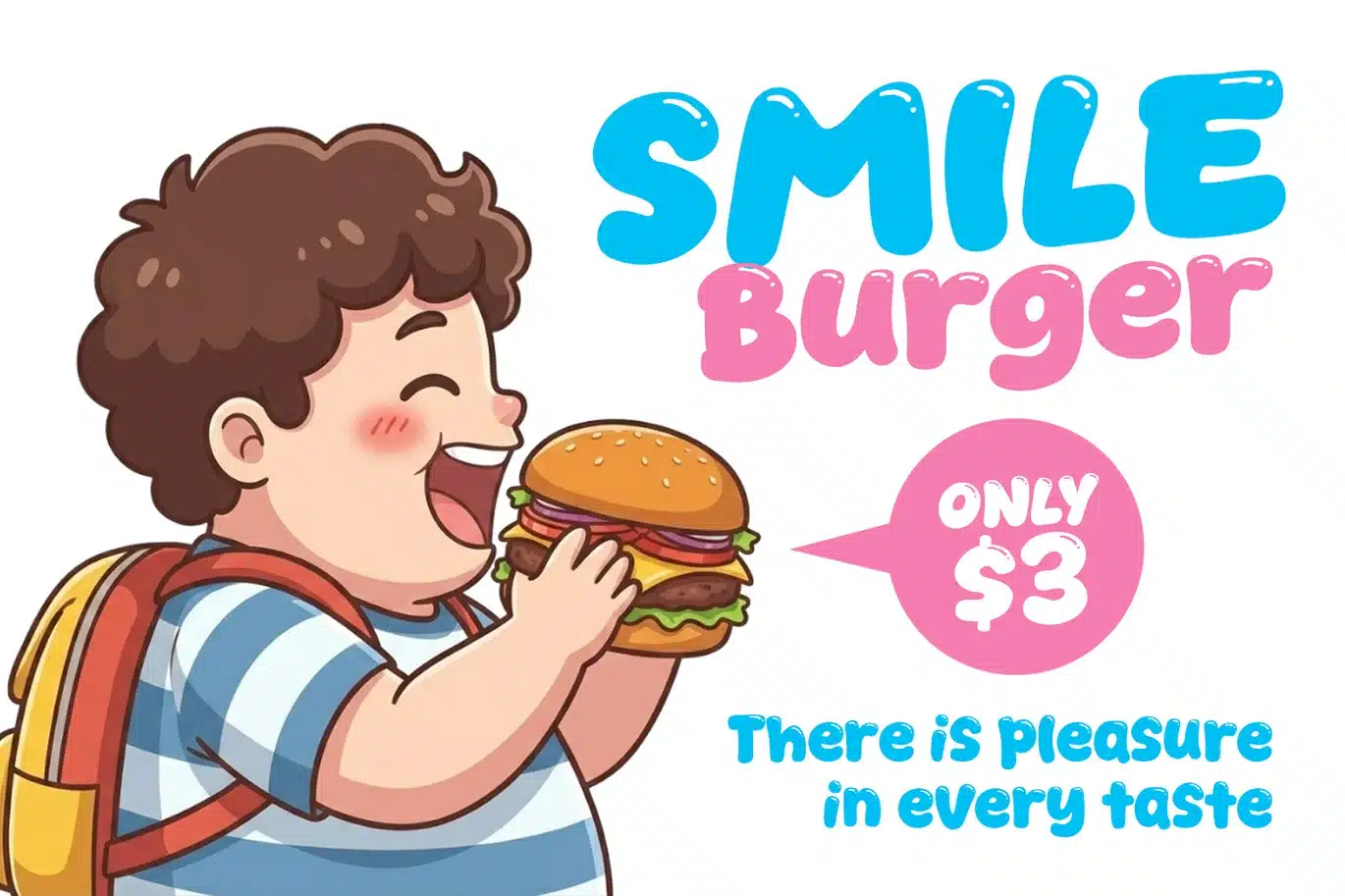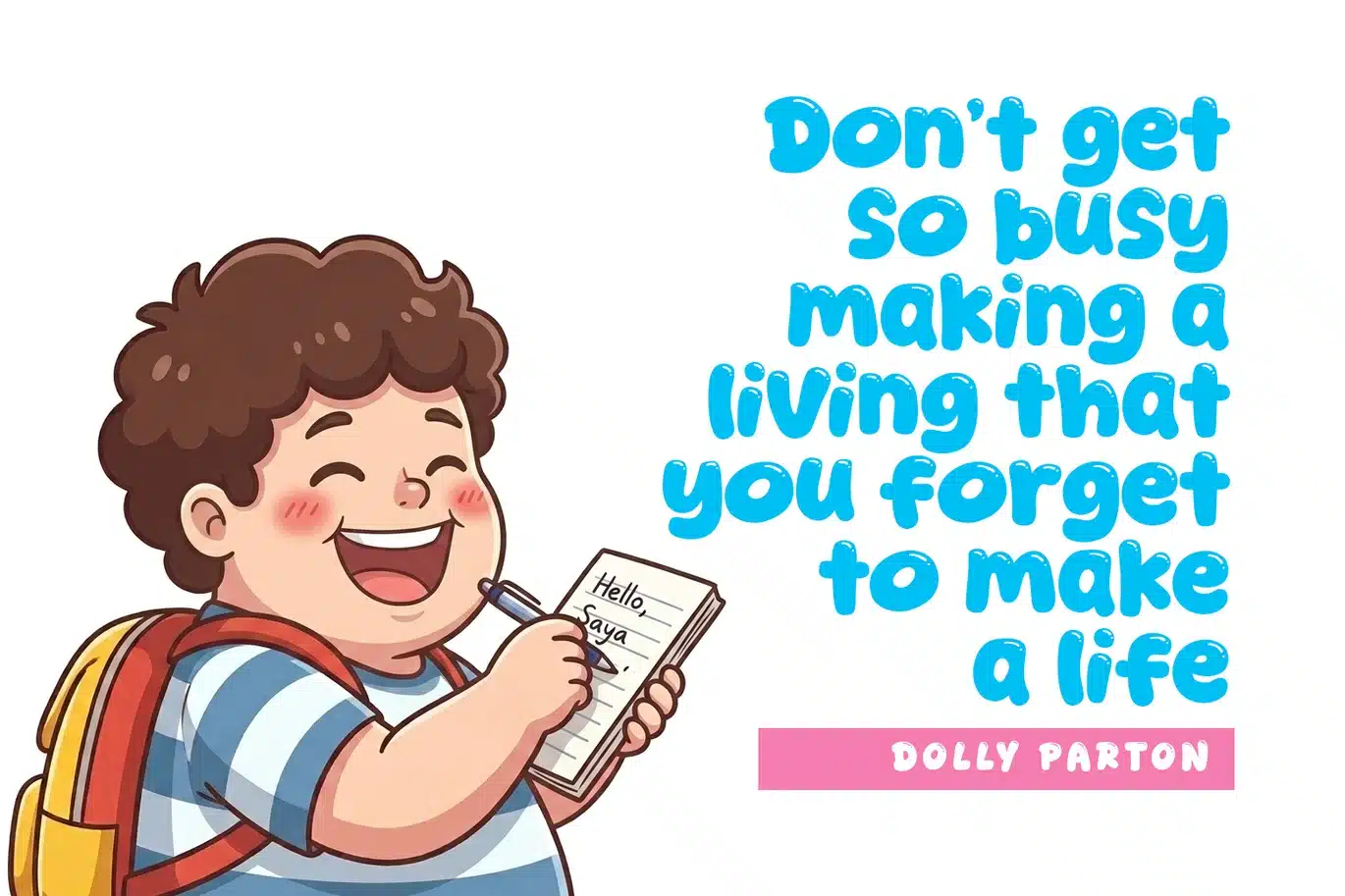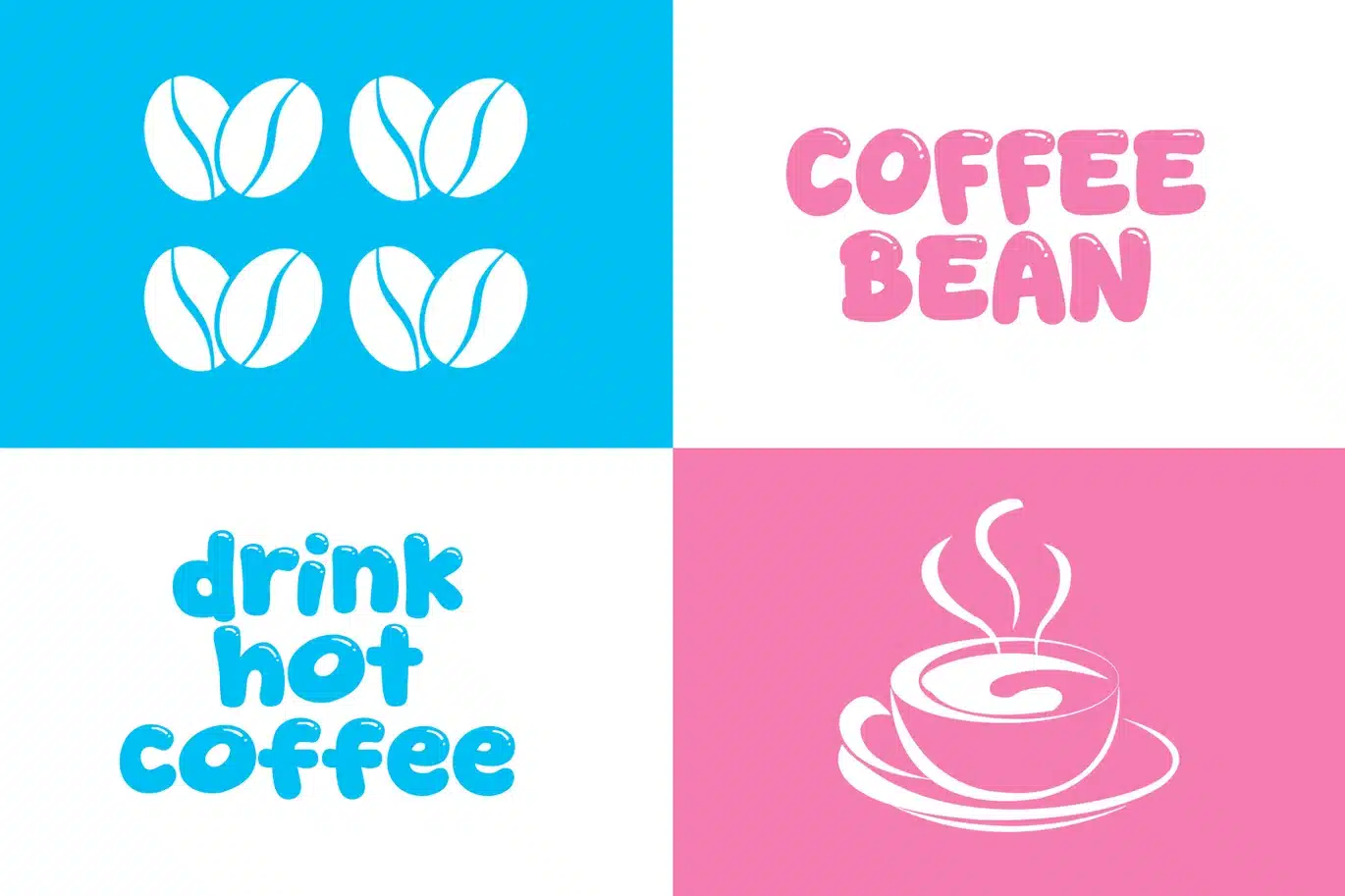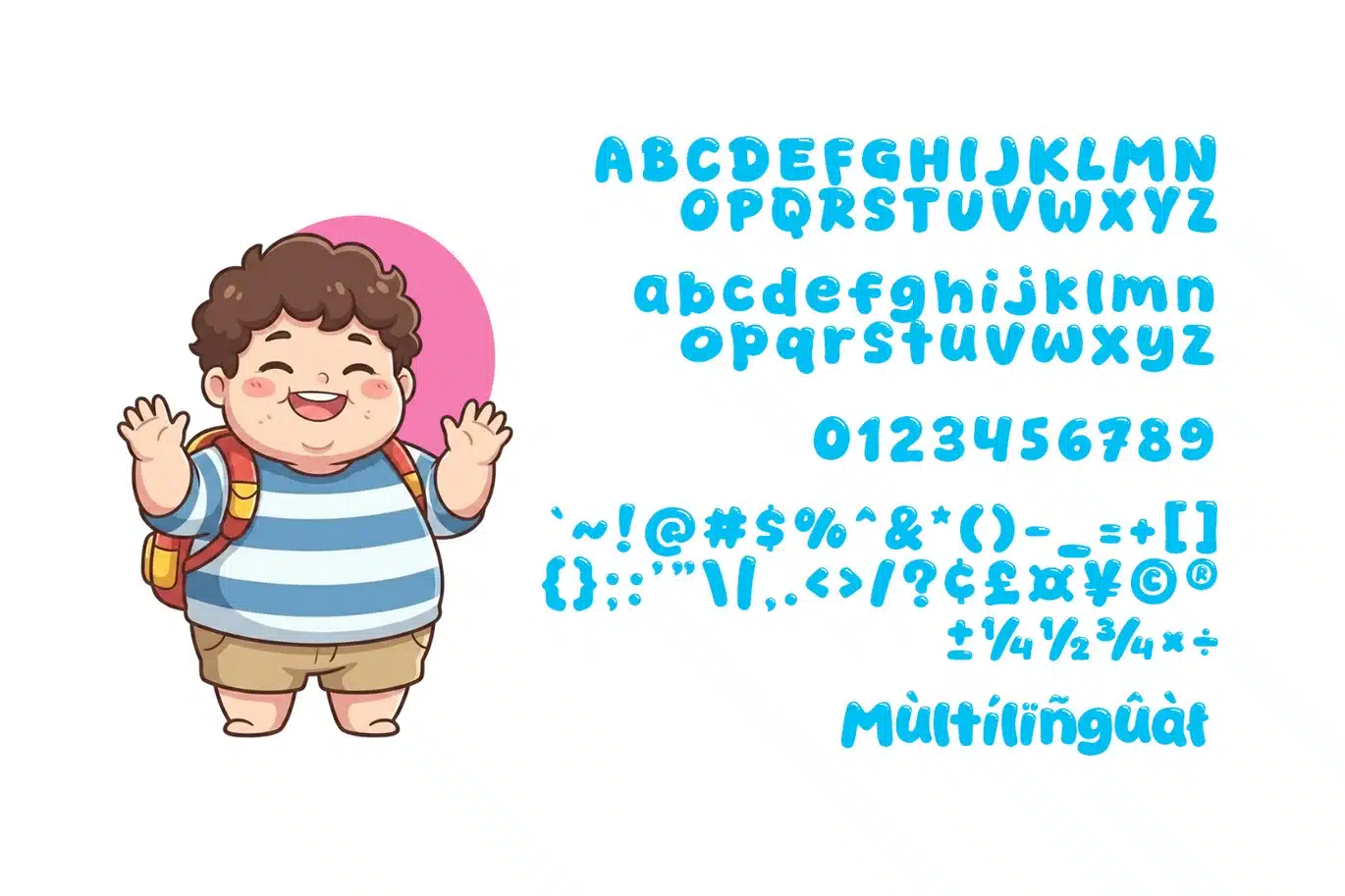
Vito Bold – Cozy & Display Font
Vito Bold is a fun, bold display typeface designed with a cheerful theme for your creative projects. This font is perfect for logos, branding, greeting cards, posters, and any design that needs a touch of personality and joy.